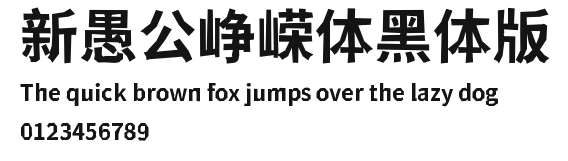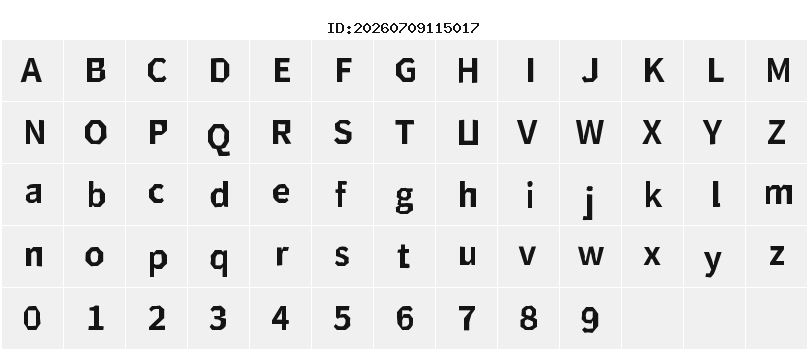
新愚公峥嵘体黑体版 Preview
• Font Name: 新愚公峥嵘体黑体版
• Full Font Name: 新愚公峥嵘体黑体版
• Version: Version 1.20
• Designer: 新愚公
About 新愚公峥嵘体黑体版.ttf
新愚公峥嵘体黑体版.ttf is a modern, elegant sans-serif font designed for ultimate readability and visual harmony. Perfect for branding, headlines, web design, and print materials.